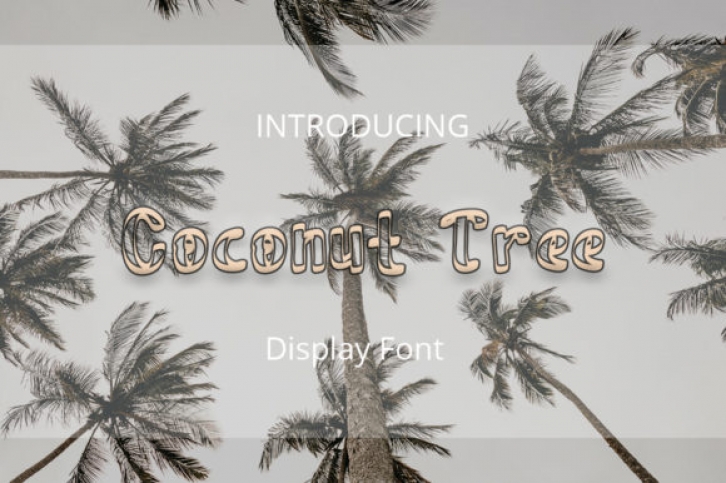
Coconut Tree is a fun and simple outlined display font. Fall in love with its incredibly distinct and timeless style and use it to create spectacular designs!